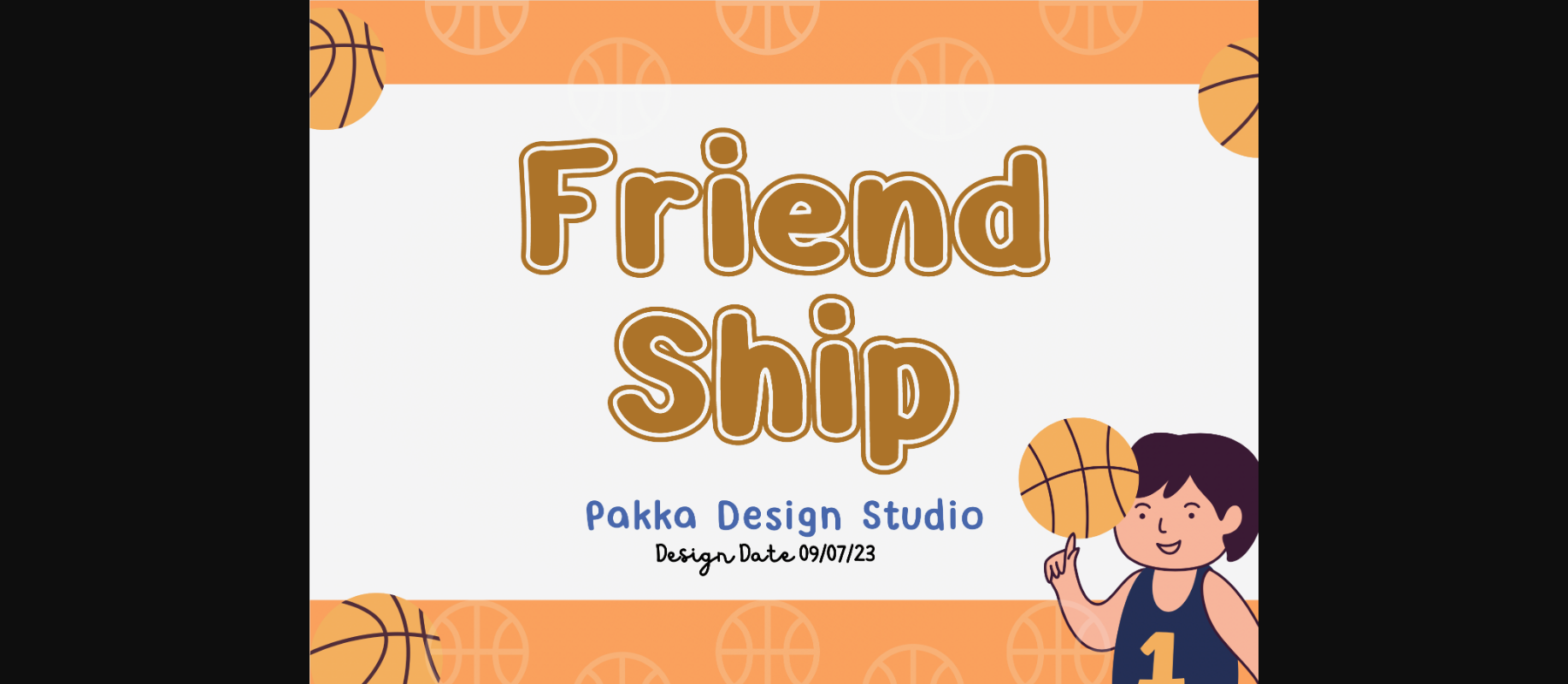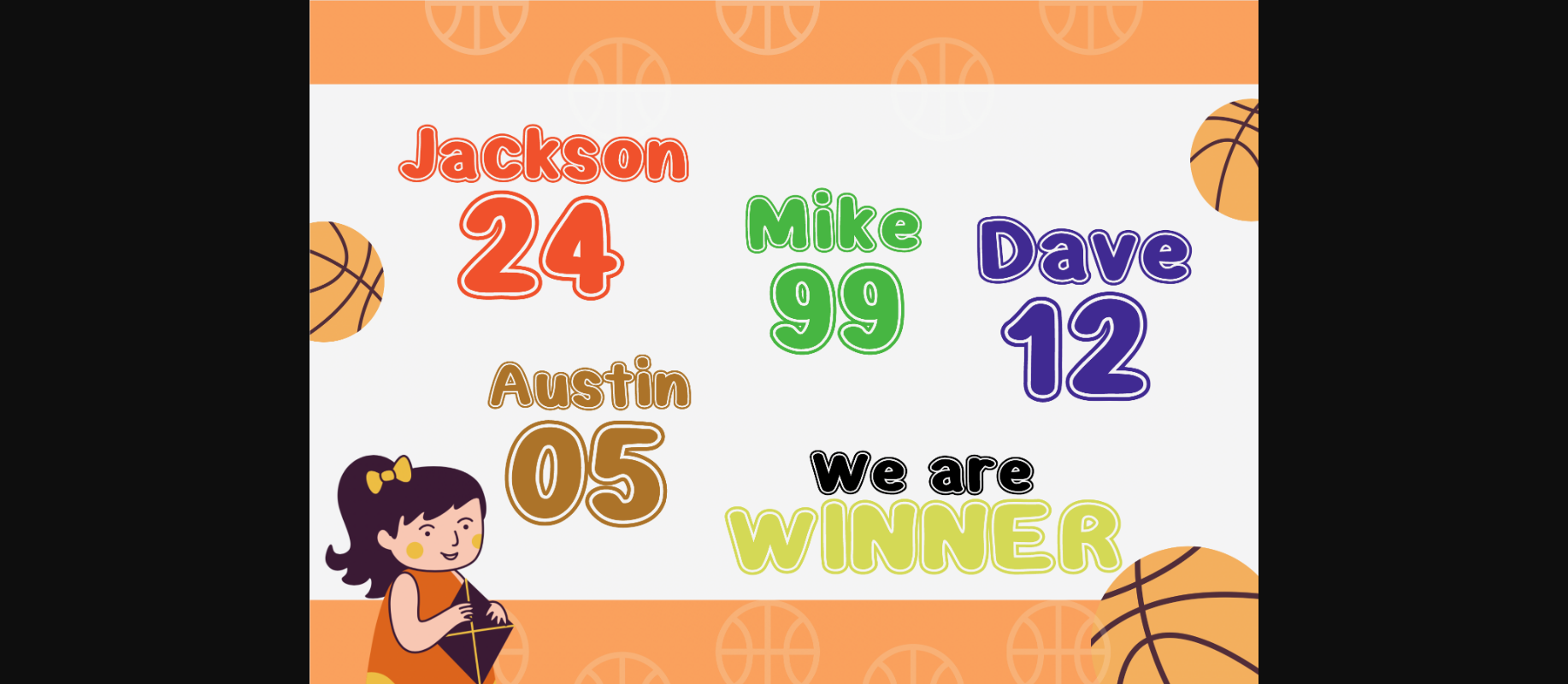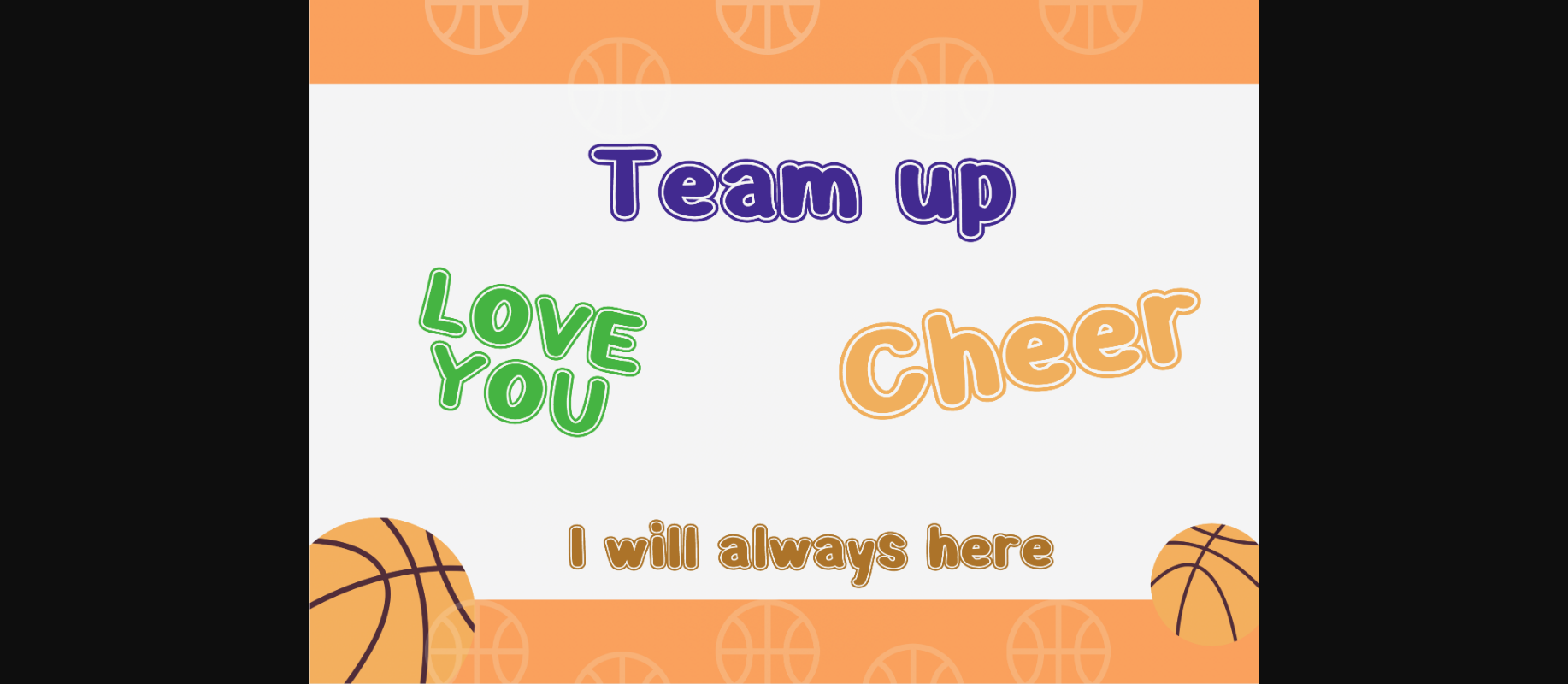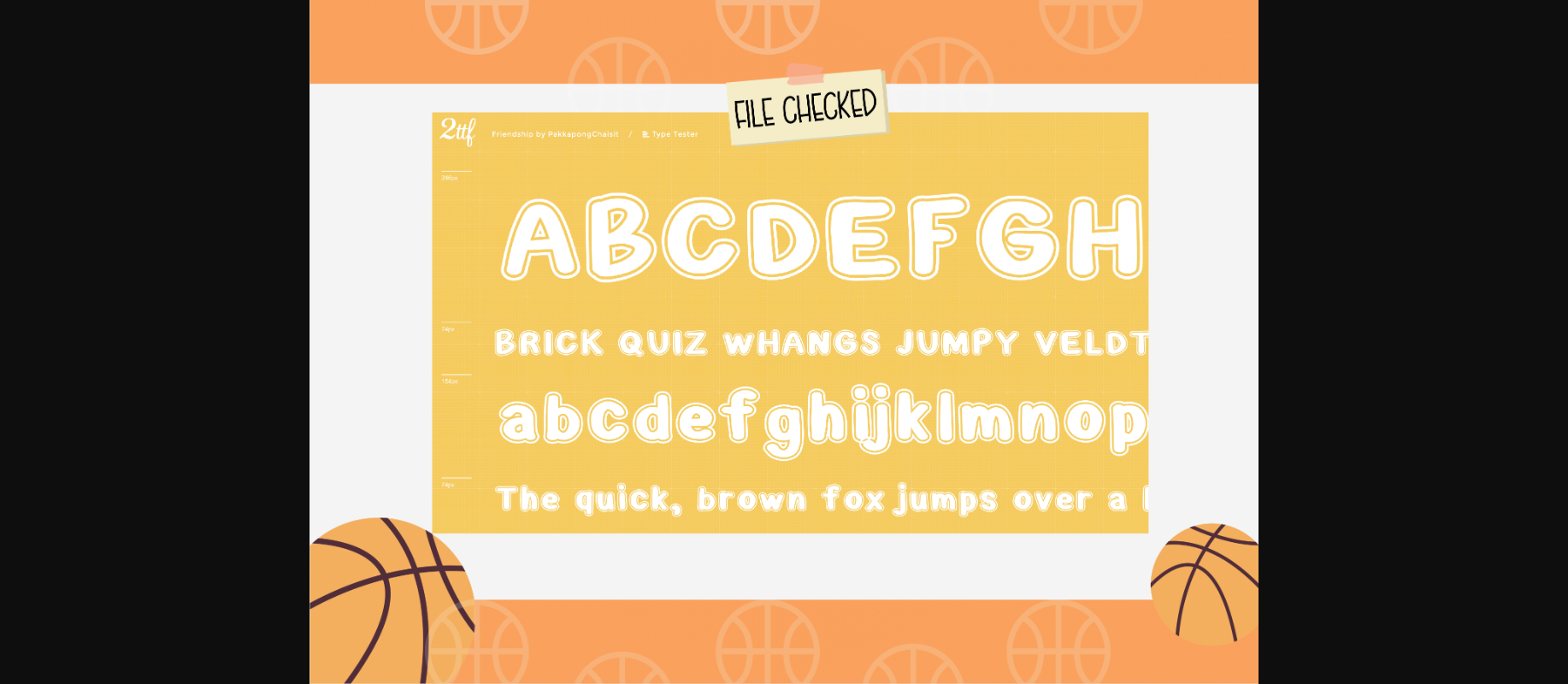
Friendship Font
About Friendship Font
A chubby style font with an outline in a basketball theme combines the playful and rounded nature of a chubby font with the striking presence of an outline. Each letter appears plump and bold, with a defined outline that adds emphasis and visual impact.
The font captures the spirit and energy of basketball, evoking images of bouncing balls, hoop shots, and team camaraderie.
With its chubby form and outlined edges, this font exudes a sense of fun and enthusiasm, mirroring the excitement and passion of the sport. It is the perfect choice for designs related to basketball events, sports-themed projects, or anything that seeks to convey a dynamic and spirited atmosphere.